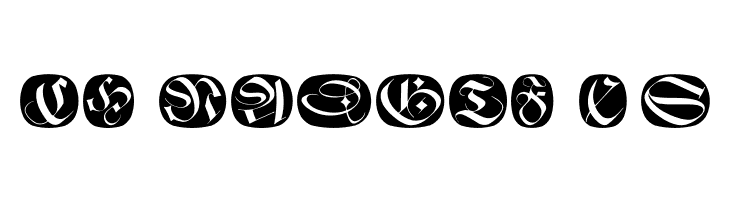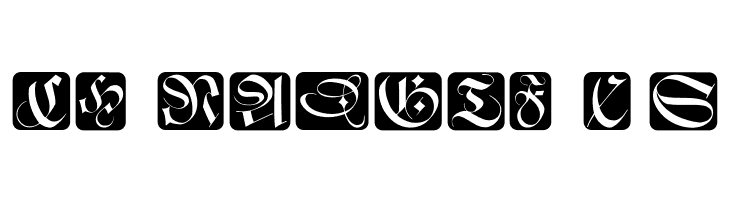
A decorative font with bold, swirling strokes and high contrast, enclosed in rounded shapes.
A bold, decorative blackletter font with high contrast and ornate details.